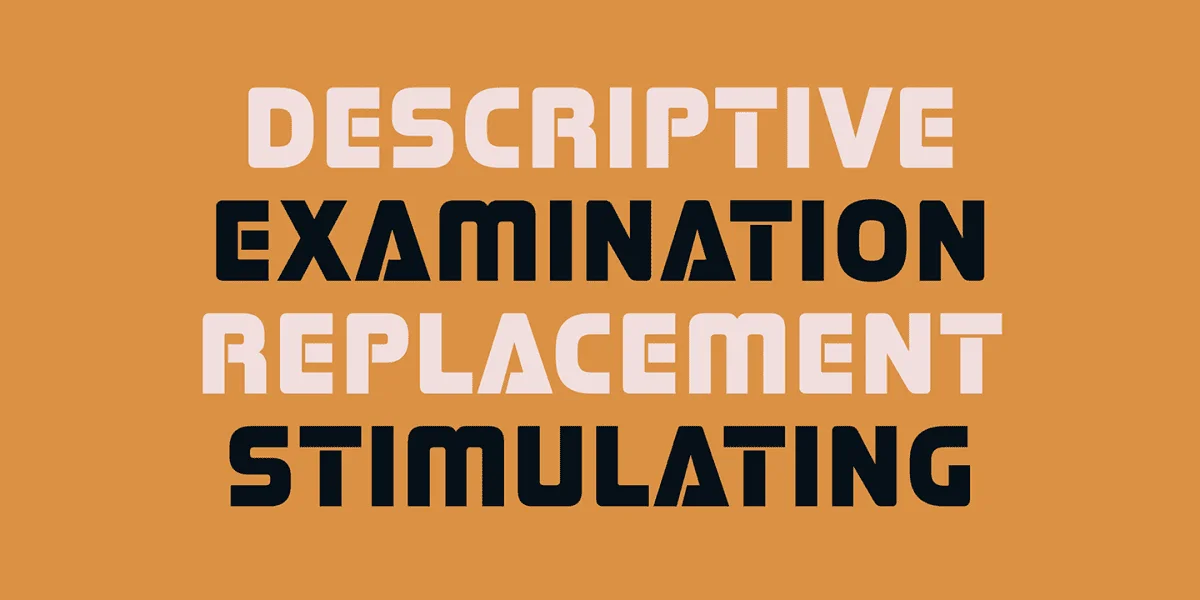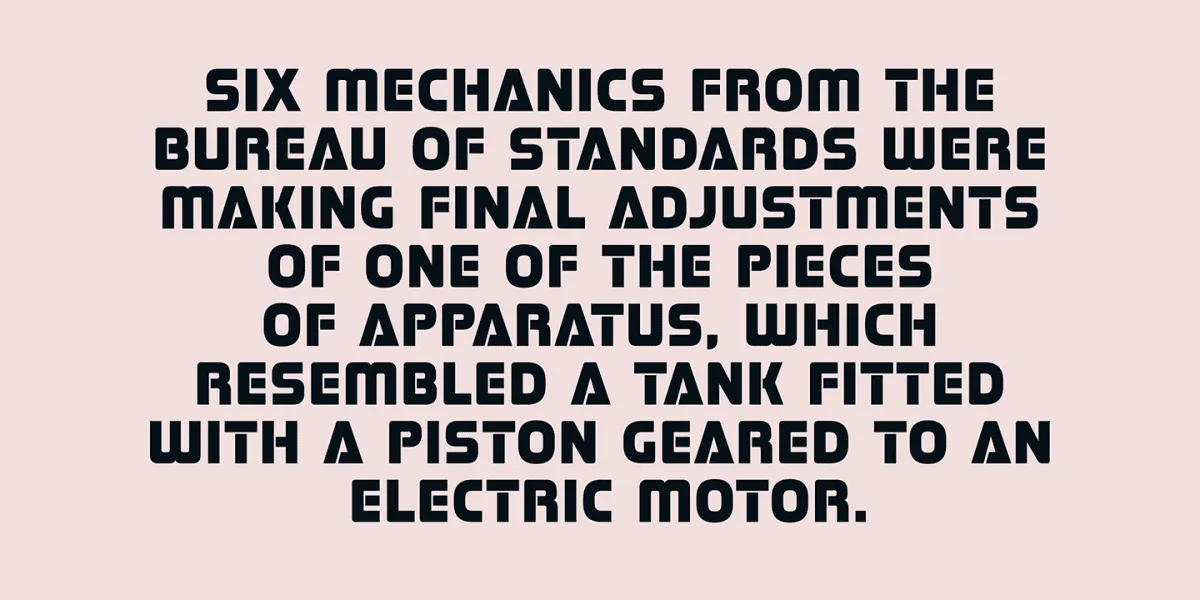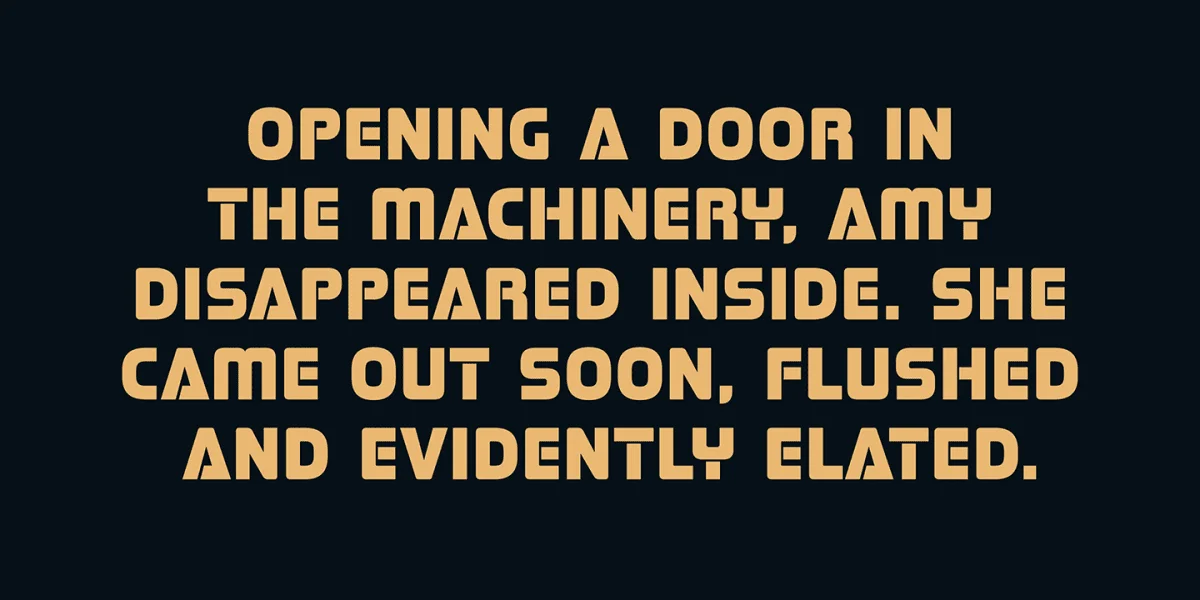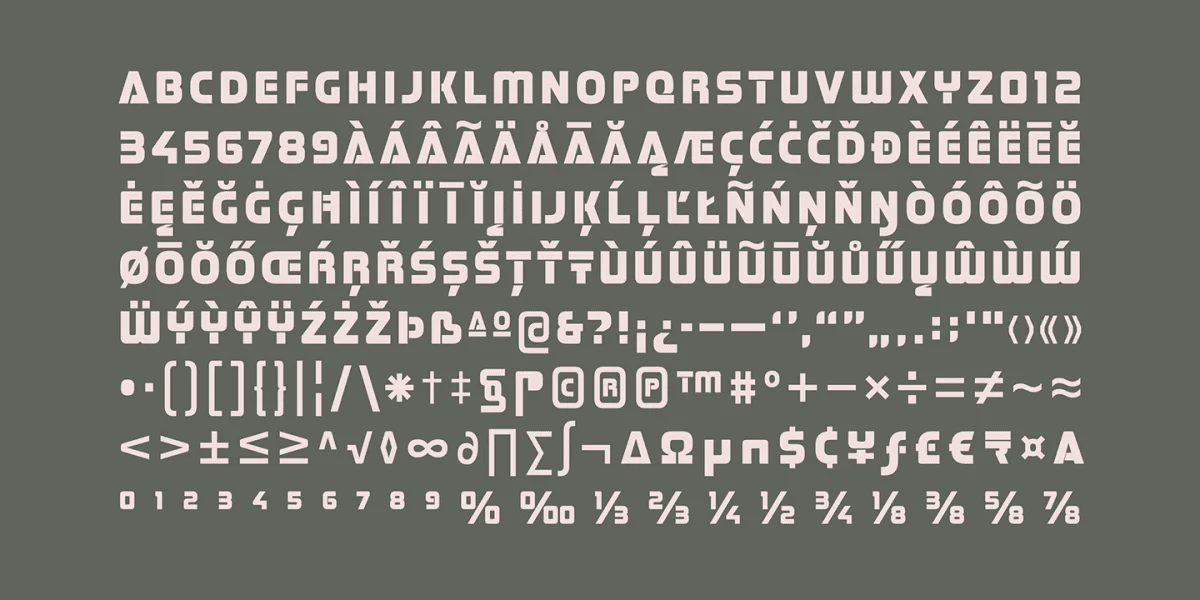
Step into a world of pure technology with Stormfaze, the ultimate typeface for the 21st century sci-fi enthusiast. Designed with the sleek and futuristic aesthetic of the 80s action flicks, this font will transport you to a world of neon lights, arcade games, and infinite possibilities.
With its sharp, angular edges and austere letterforms, Stormfaze is a true homage to the techno-driven era that gave birth to a new wave of nerdy cool. Whether you’re designing a cyberpunk novel cover, a futuristic video game interface, or a scientific report, Stormfaze will give your message the precise and surefooted edge it needs to stand out.
Let Stormfaze’s cutting-edge style infiltrate your design with scientific precision and cutting-edge sophistication. Your message will come to life with a bold and unforgettable look that will transport you to a world of infinite possibilities.
So why settle for anything less? Embrace your inner nerd and let Stormfaze give your designs a high-tech makeover that will make your message stand out from the rest. It’s time to take your design game to the next level with Stormfaze.
Most Latin-based European writing systems are supported, including the following languages. Afaan Oromo, Afar, Afrikaans, Albanian, Alsatian, Aromanian, Aymara, Bashkir (Latin), Basque, Belarusian (Latin), Bemba, Bikol, Bosnian, Breton, Cape Verdean, Creole, Catalan, Cebuano, Chamorro, Chavacano, Chichewa, Crimean Tatar (Latin), Croatian, Czech, Danish, Dawan, Dholuo, Dutch, English, Estonian, Faroese, Fijian, Filipino, Finnish, French, Frisian, Friulian, Gagauz (Latin), Galician, Ganda, Genoese, German, Greenlandic, Guadeloupean Creole, Haitian Creole, Hawaiian, Hiligaynon, Hungarian, Icelandic, Ilocano, Indonesian, Irish, Italian, Jamaican, Kaqchikel, Karakalpak (Latin), Kashubian, Kikongo, Kinyarwanda, Kirundi, Kurdish (Latin), Latvian, Lithuanian, Lombard, Low Saxon, Luxembourgish, Maasai, Makhuwa, Malay, Maltese, Maori, Moldovan, Montenegrin, Ndebele, Neapolitan, Norwegian, Novial, Occitan, Ossetian (Latin), Papiamento, Piedmontese, Polish, Portuguese, Quechua, Rarotongan, Romanian, Romansh, Sami, Sango, Saramaccan, Sardinian, Scottish Gaelic, Serbian (Latin), Shona, Sicilian, Silesian, Slovak, Slovenian, Somali, Sorbian, Sotho, Spanish, Swahili, Swazi, Swedish, Tagalog, Tahitian, Tetum, Tongan, Tshiluba, Tsonga, Tswana, Tumbuka, Turkish, Turkmen (Latin), Tuvaluan, Uzbek (Latin), Venetian, Vepsian, Võro, Walloon, Waray-Waray, Wayuu, Welsh, Wolof, Xhosa, Yapese, Zapotec Zulu and Zuni.